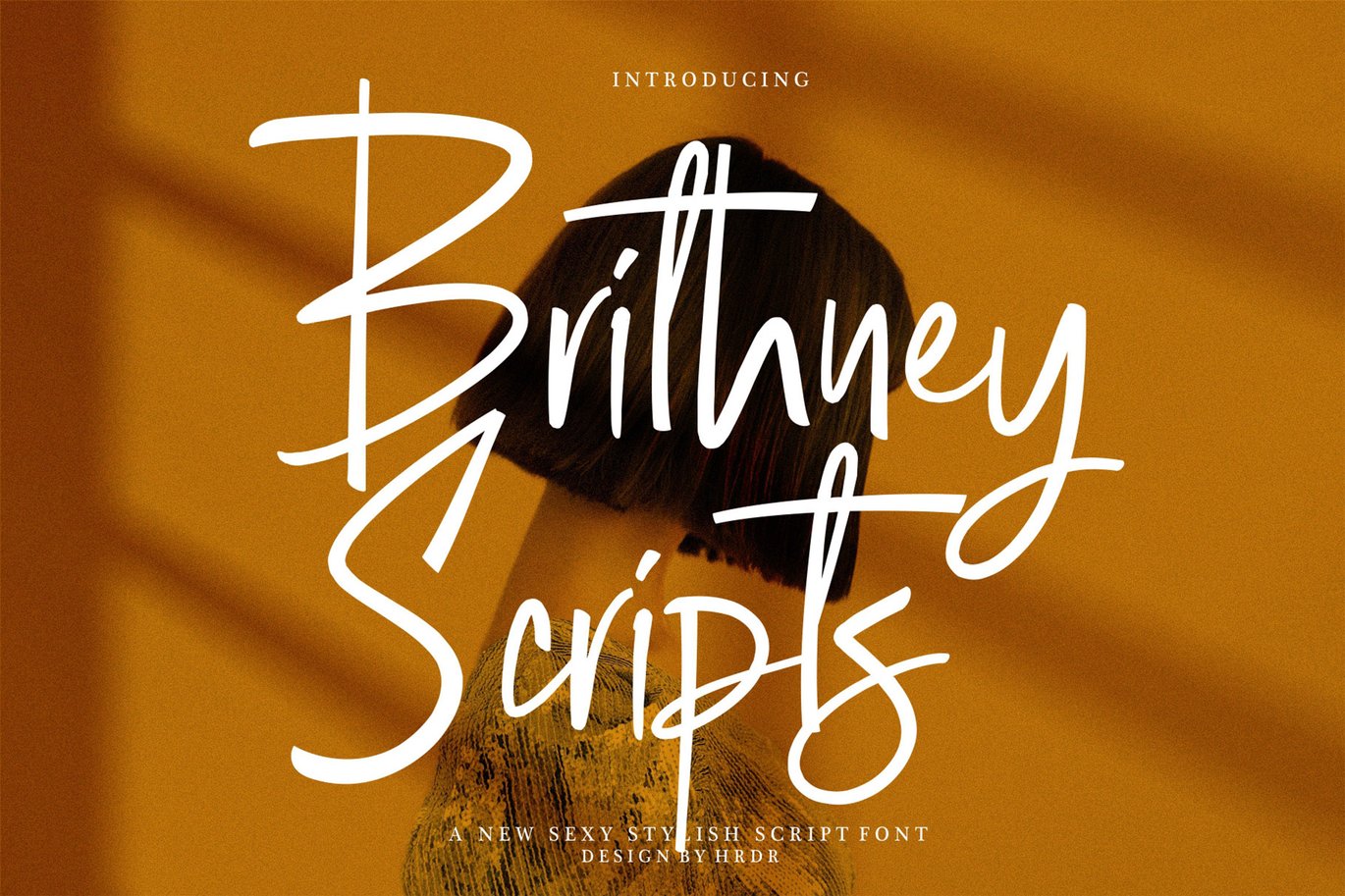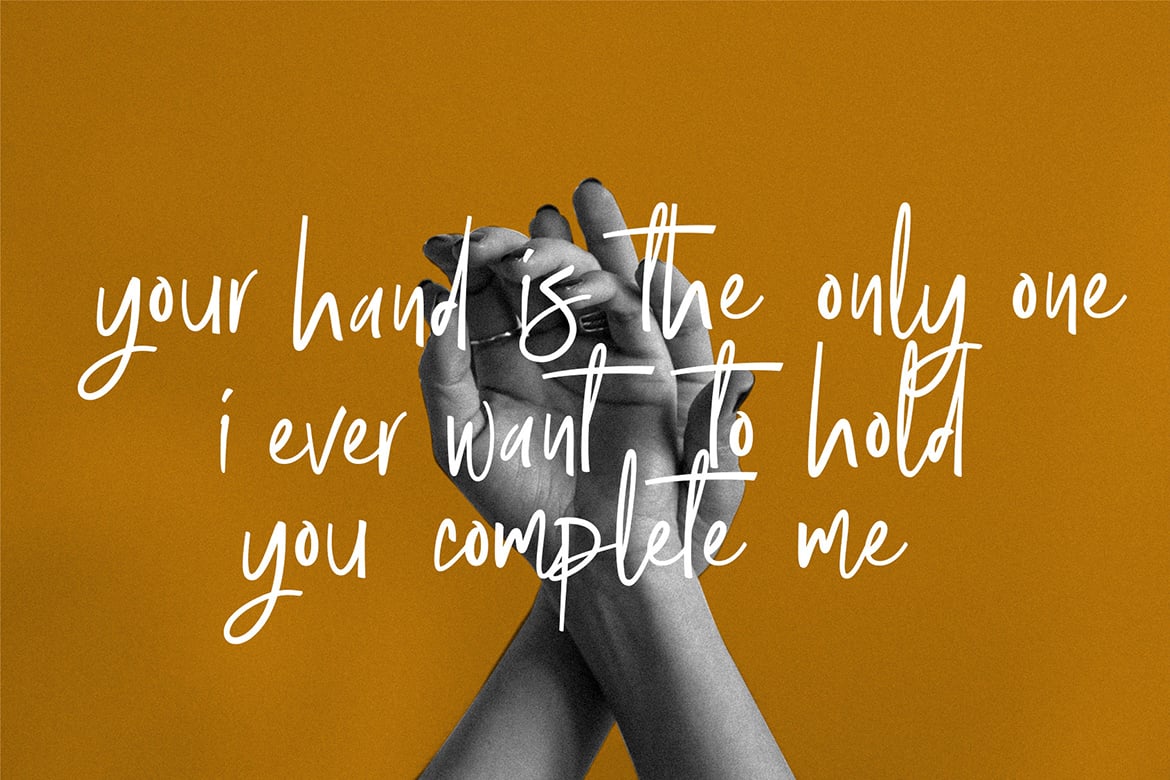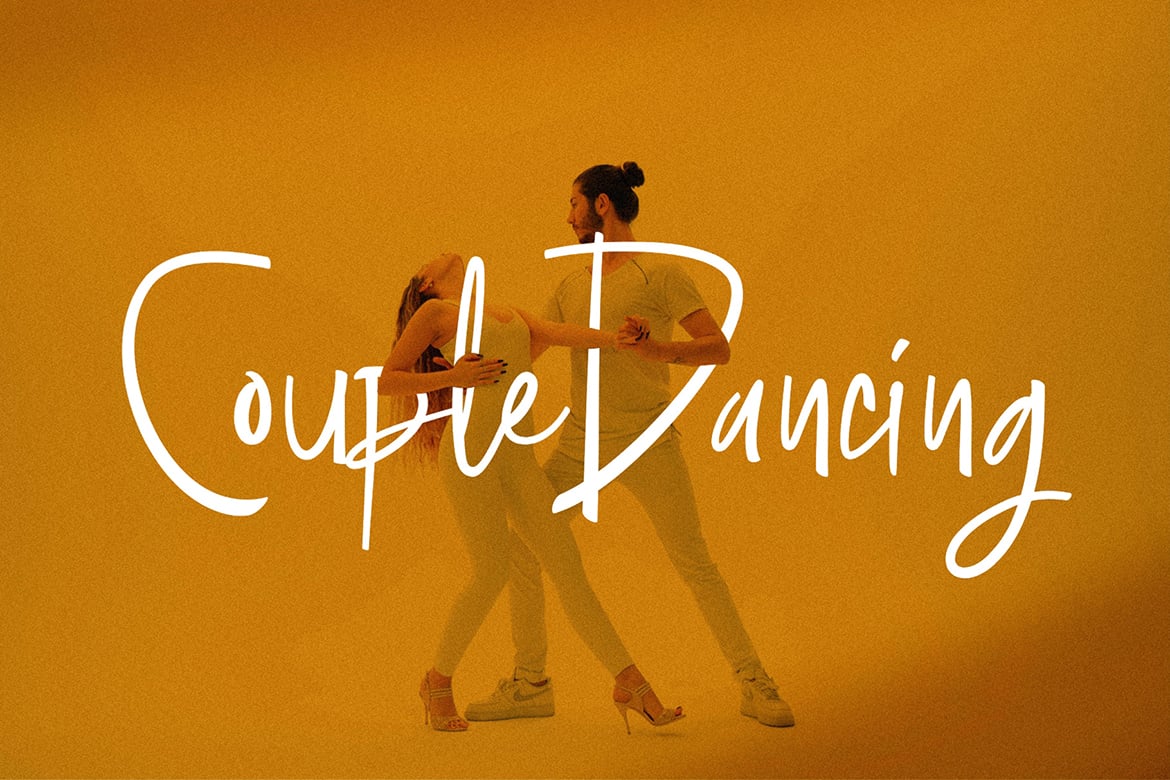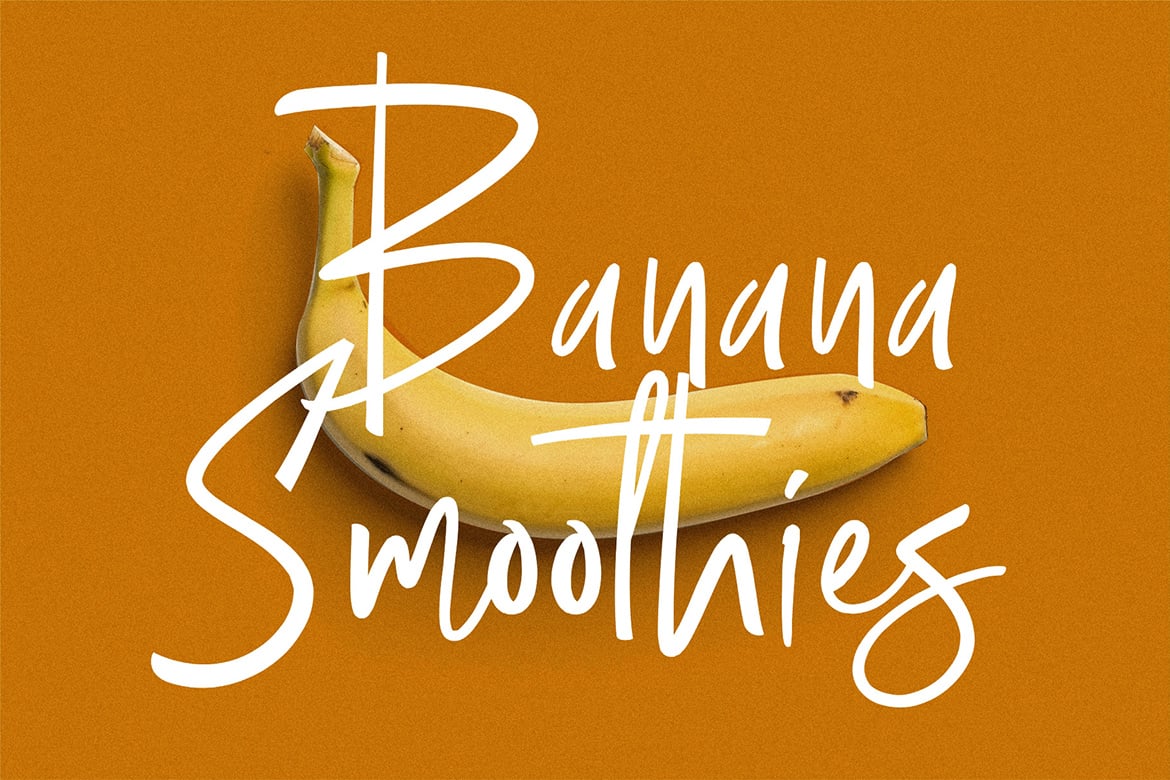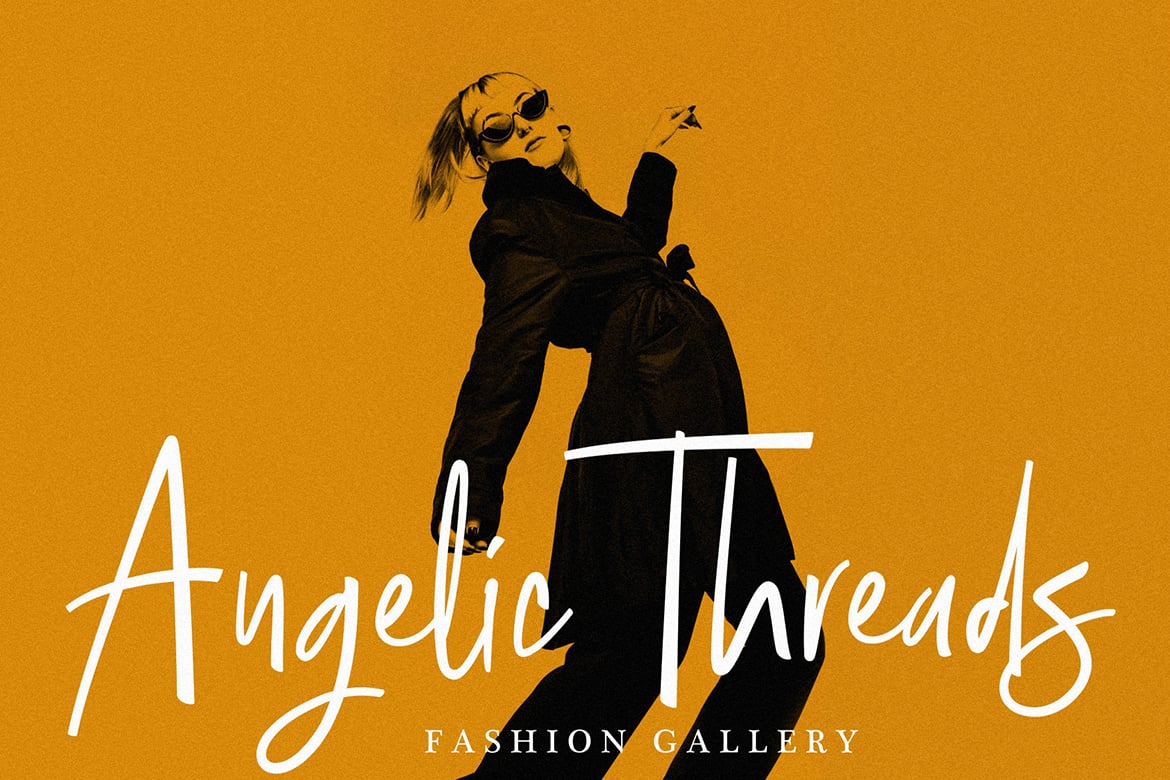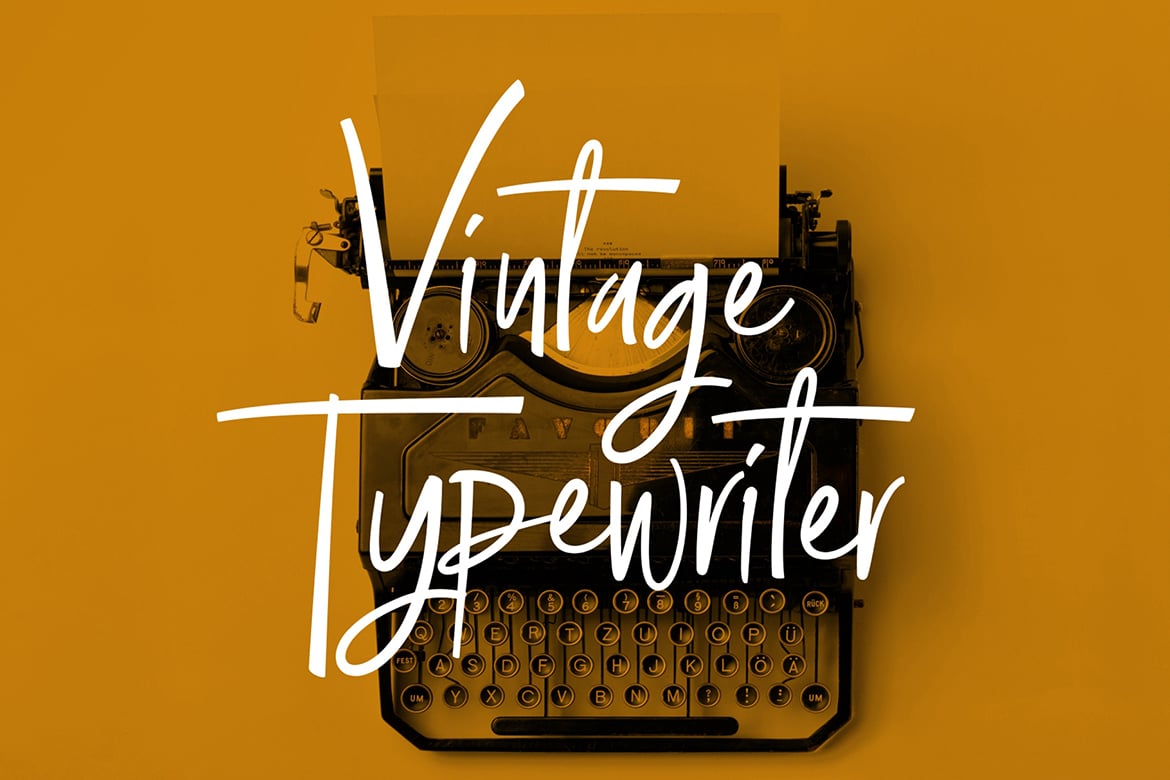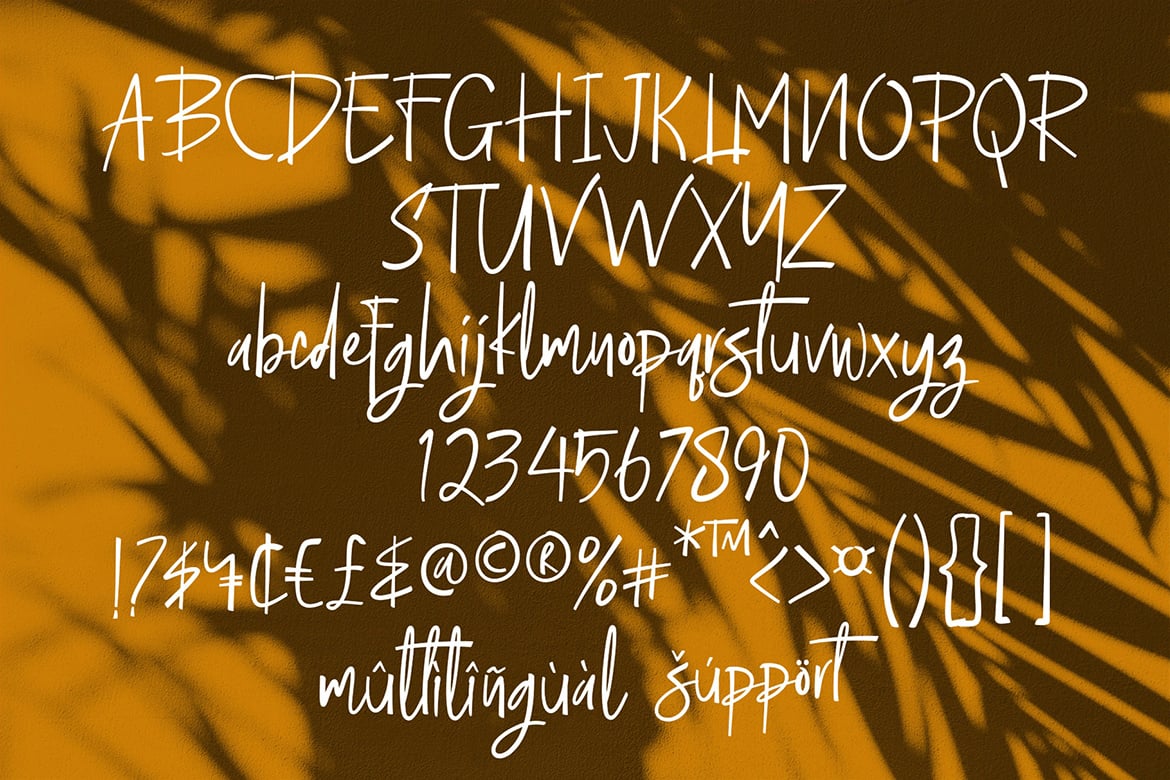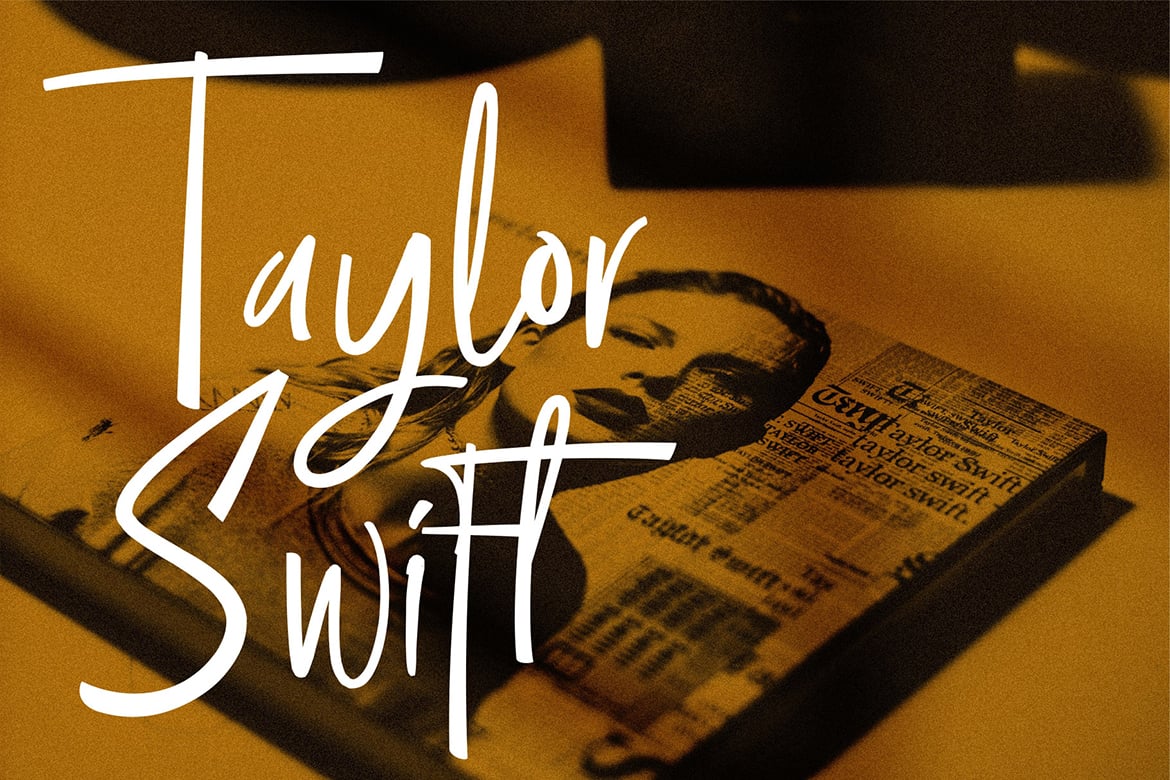
Brithney Scripts – Sexy Stylish Script Font
Brithney Script is a fashionable and super-chilled new font with handwritten font script with some sexy stylish.
Brithney Script includes a full set of lovely uppercase and lowercase letters, multilingual symbols, numerals and punctuation.
Brithney Script offers beautiful typographic harmony for a diversity of design projects, wedding invitation card designs, logotypes, business card designs, advertisements, product designs, stationery, product packaging, quotes and so on.